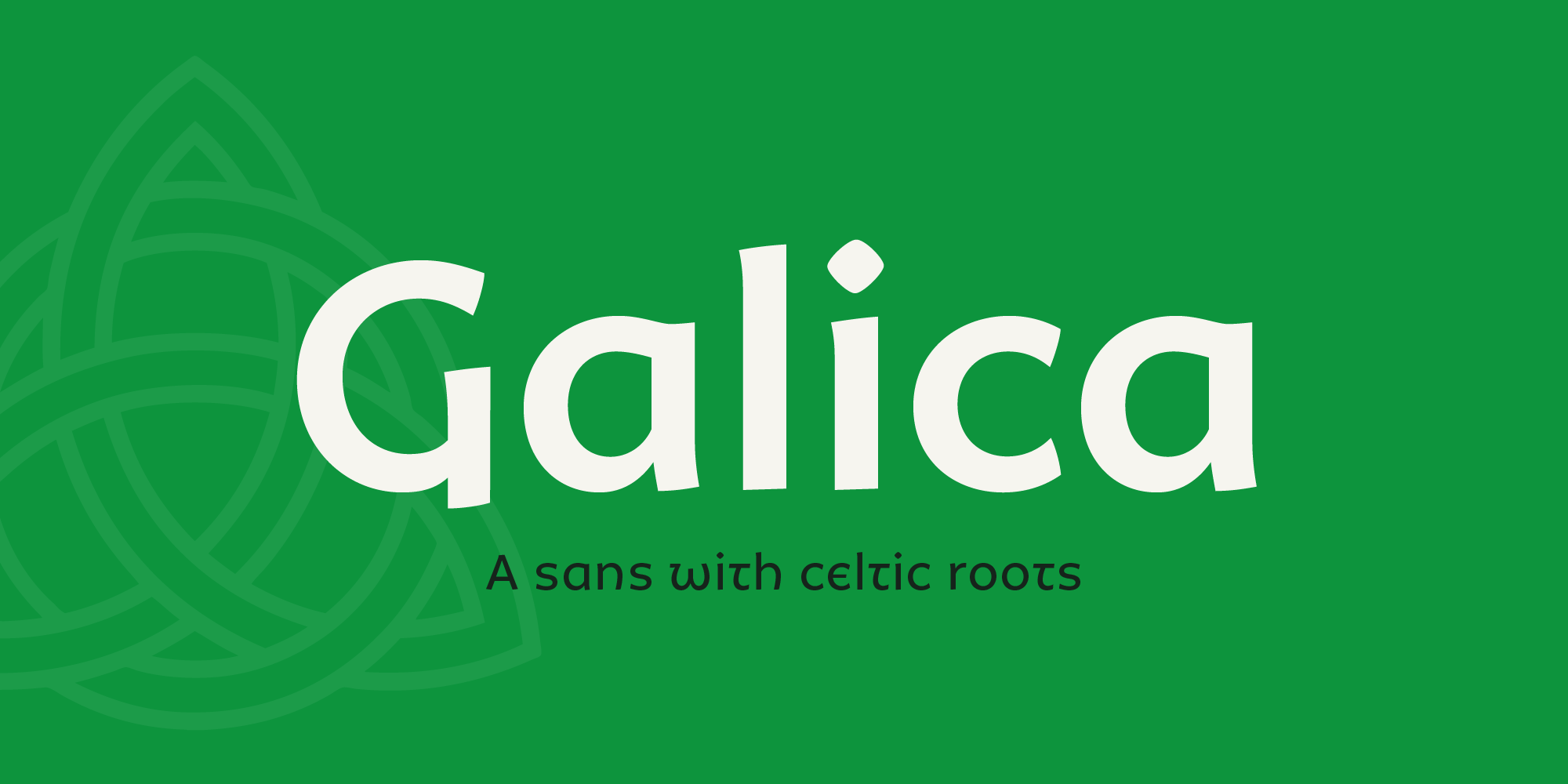
This elegant font is perfect for European cultural institutions, historic preservation societies, traditional craft branding, Celtic heritage organizations, artisan product packaging, cultural festival materials, heritage tourism campaigns, and authentic regional identity projects. Its distinguished character makes it ideal for projects requiring cultural authenticity and Old World sophistication.
Galica Font is exciting because it captures the timeless elegance of European cultural heritage with letterforms that embody centuries of artistic tradition and regional craftsmanship. The font features classical proportions, refined details, and cultural authenticity that reflects the rich artistic legacy and enduring values found in historic European communities. Its heritage personality instantly communicates tradition, quality, and the precious continuity of cultural identity across generations.
The Galica Font family typically includes multiple traditional weights and cultural variations, along with Celtic ornaments, heritage symbols, and regional decorative elements. Many versions feature stylistic alternates, traditional ligatures, and cultural glyphs that enhance the authentic European aesthetic and historical credibility.
Whether you're developing cultural heritage brands, traditional craft businesses, or regional tourism campaigns, Galica Font Free Download provides authentic European sophistication with contemporary functionality. This typeface transforms standard communications into cultural celebrations that resonate with audiences who value tradition, craftsmanship, and the irreplaceable beauty of regional heritage. Its distinctive character adds immediate cultural credibility while honoring the enduring legacy of Galica Font Free Download and the precious cultural treasures that connect us to our ancestral roots and remind us of the timeless wisdom found in traditional ways of life.